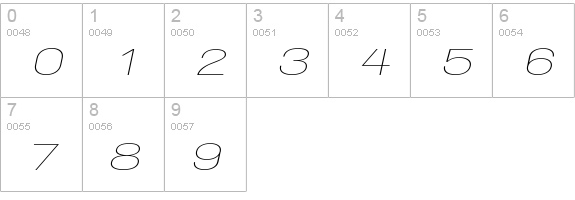
Walkway Oblique Expand is a distinctive, italic variant in the Walkway typeface family \xE2\x80\x94 well suited to design and typography projects.
Walkway Oblique Expand is a stunning font that combines the elegance and simplicity of a modern typeface with a unique twist. Its oblique design adds a touch of sophistication and creativity, making it perfect for a variety of design projects. This font features an expanded letterform, giving it a bold and eye-catching appearance. The wide spacing between letters allows for maximum legibility, making it ideal for headlines, banners, and other attention-grabbing elements. What sets Walkway Oblique Expand apart is not only its captivating design but also the fact that it is completely free. Yes, you read that right! This exceptional font is freely available to download at FontsMarket.com. Whether you're a professional designer or a creative enthusiast, you can now elevate your projects without having to worry about breaking the bank. With Walkway Oblique Expand, you have the freedom to experiment and unleash your imagination. Its versatility makes it suitable for a wide range of applications, including branding, packaging, posters, and more. It effortlessly adds a touch of modern elegance to any project, ensuring that your message stands out from the crowd. The clean lines and balanced proportions of this font create a harmonious visual experience, while the oblique style adds a sense of dynamism and movement. The result is a typeface that is both visually striking and highly legible, making it a go-to choice for designers seeking a font that combines style and functionality. So why wait? Download Walkway Oblique Expand for free today at FontsMarket.com and discover the endless possibilities it offers. Whether you're designing a website, creating a logo, or crafting a brochure, this font is sure to elevate your work to new heights. Give your projects the professional touch they deserve with Walkway Oblique Expand.